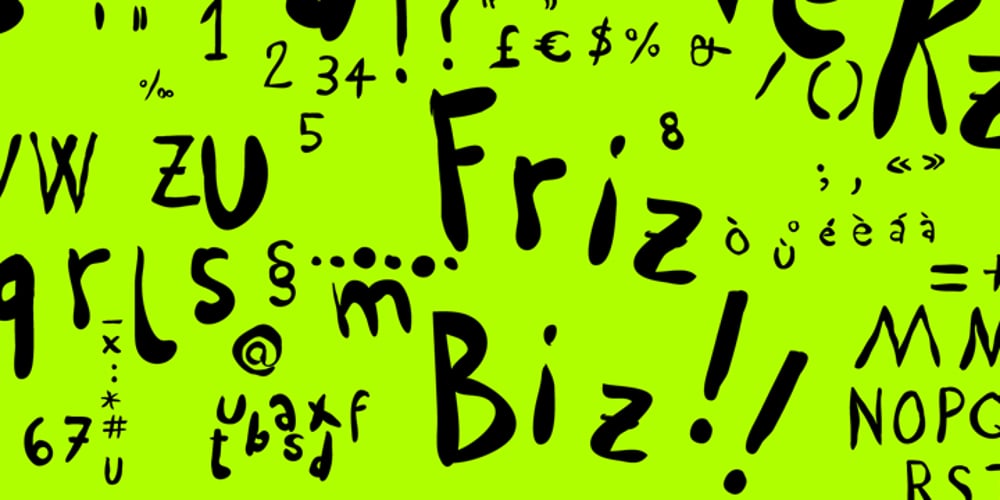
Friz Biz
Friz Biz font
Friz Biz Font Family was designed by published by studiocharlie. Friz Biz contains 1 styles and family package options. Friz Biz is an handwritten font; your designs will be really funny and fancy!